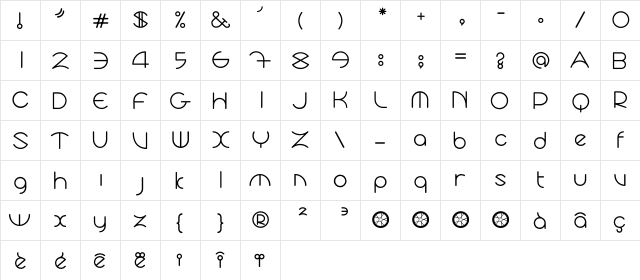
Cyclo Regular
Design Context for Cyclo Typeface
Cyclo takes a measured approach to typography — its balanced proportions and neutral character make it a reliable workhorse for both digital and print work.